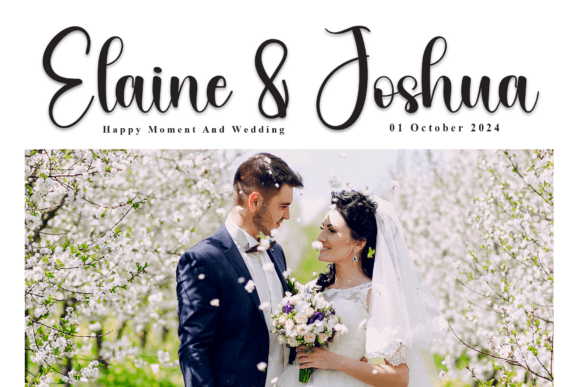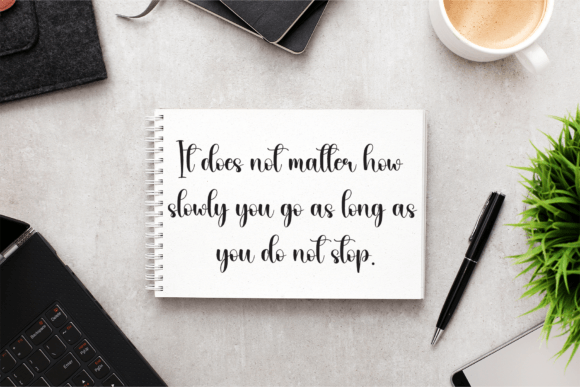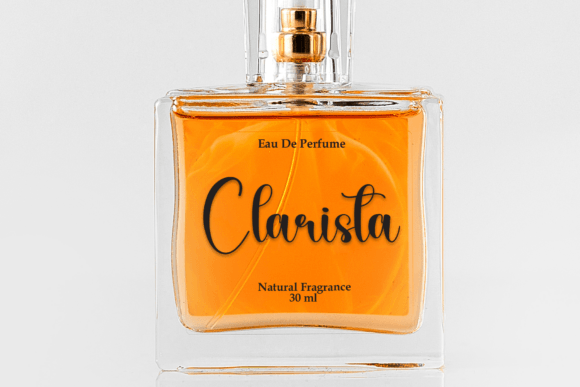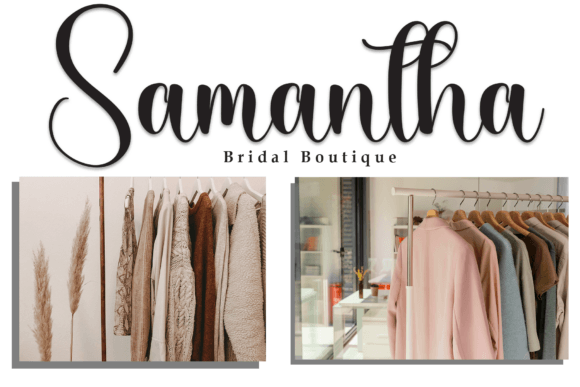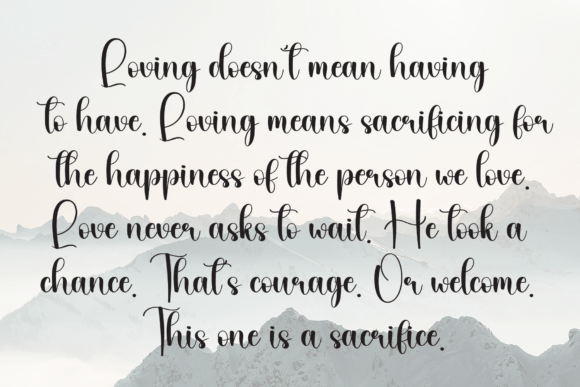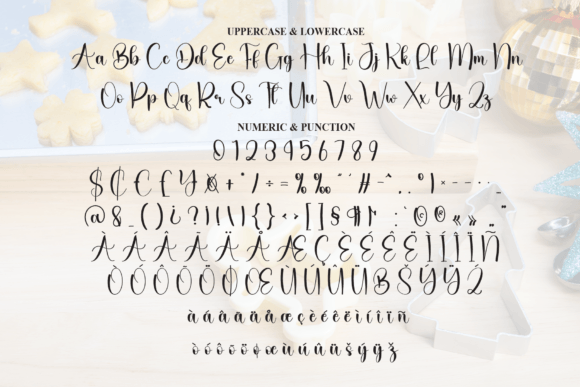
The Perfect Touch of Whimsy in Your Designs
As designers, we’ve all been there – staring at a blank canvas, trying to bring a client’s vision to life. It’s in those moments that we’re reminded of the power of typography to evoke emotions and set the tone for a project. And that’s exactly where the Butter Christmas Font comes in – a charming, handwritten display font that’s guaranteed to add a dash of personality to any design assignment.
Whether you’re crafting wedding invitations, heartfelt cards, or simply looking to infuse a bit of joy into a project, the Butter Christmas Font is the perfect companion. Its playful spirit and delightful touch make it a valuable addition to any designer’s toolkit, allowing you to create visually appealing texts that captivate and inspire.
Key Features of Butter Christmas Font
- Font Family: The Butter Christmas Font is a unique, hand-drawn font family that includes a variety of styles, from bold and playful to elegant and sophisticated.
- Unique Characteristics: The Butter Christmas Font features a distinctive, hand-drawn feel with intricate details and flourishes, making it perfect for adding a touch of whimsy and personality to designs.
Designer Review: Butter Christmas Font
Overall, I think the Butter Christmas Font has some great qualities that make it a decent choice for holiday-themed designs. ✨ One of the things that stands out is the playful and whimsical feel of the font. It’s perfect for creating a festive atmosphere and adds a touch of magic to any design. ✨ The font also has a good balance of bold and light lines, which makes it easy to read and use in various contexts.
However, there are some limitations to consider. ⚠️ One of the main issues is the font’s lack of versatility. It’s primarily designed for Christmas-themed designs, which limits its use throughout the year. Additionally, the font may not be suitable for all types of projects, especially those that require a more formal or professional tone.
Here are some specific things to keep in mind when using the Butter Christmas Font:
- Best for: Holiday-themed designs, social media graphics, and festive print materials.
- Not suitable for: Formal documents, serious news articles, or professional presentations.
- Works well with: Bright and bold colors, festive illustrations, and playful graphics.
Overall, I’d say the Butter Christmas Font is a fun and creative choice for holiday-themed designs. While it may not be the most versatile font, it’s perfect for adding a touch of festive flair to your projects.
For a festive look, pair the Butter Christmas Font with holiday-themed graphics and colors.
The Butter Christmas Font is perfect for:
- Holiday greeting cards and invitations
- Christmas party decorations and signage
- Winter-themed social media graphics and ads
- Custom holiday gift tags and wrapping paper
With the Butter Christmas Font, you can add a touch of festive cheer